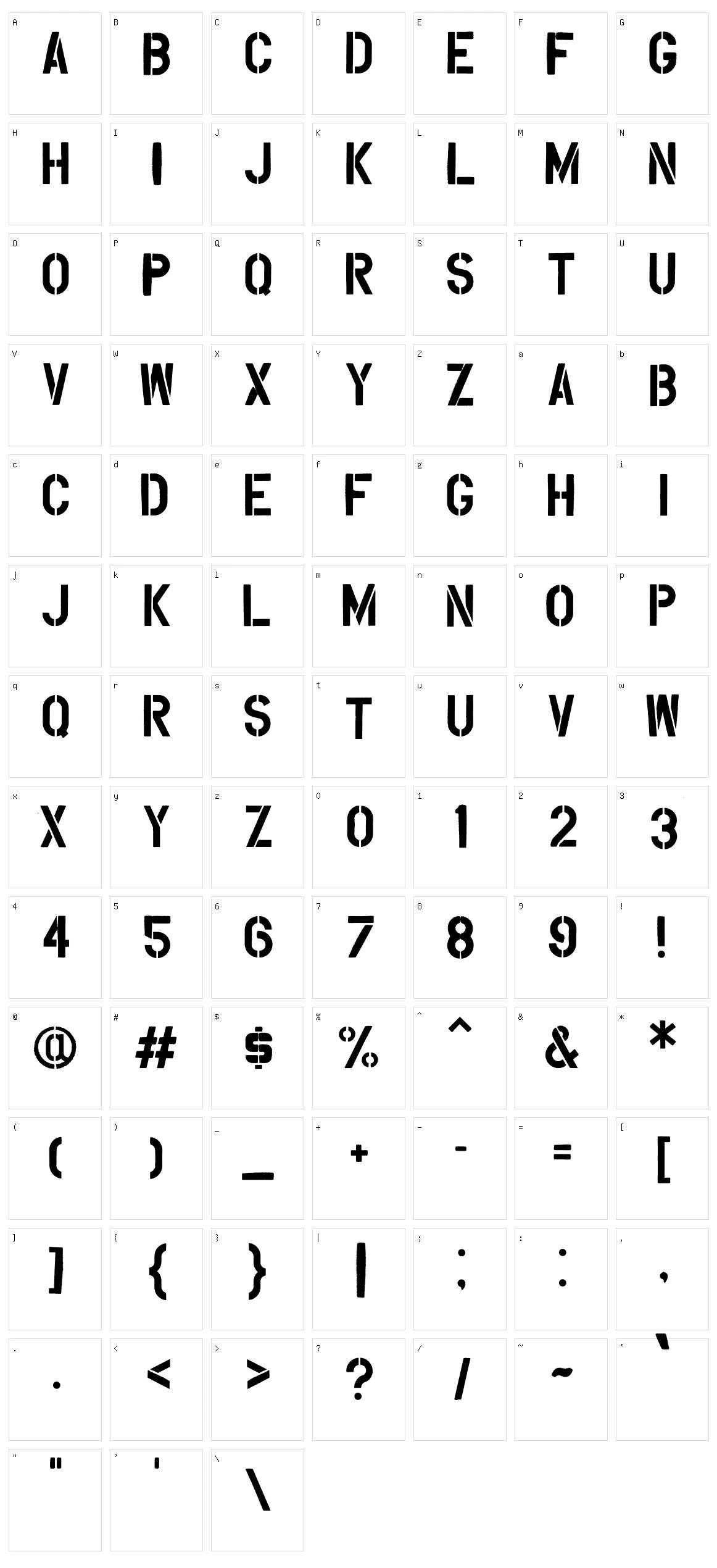
The free font Overspray is carefully designed by Tension Type, showcasing a thoughtful balance of creativity and usability and falls under the Stencil font style. When you download the ZIP file, it contains only 2504.07 KB of font files, making it lightweight and quick to download. Please review the license details below to understand permitted usage and distribution rights. If license information is not available, we recommend using this font for personal projects only or contacting the author directly for commercial usage permissions.